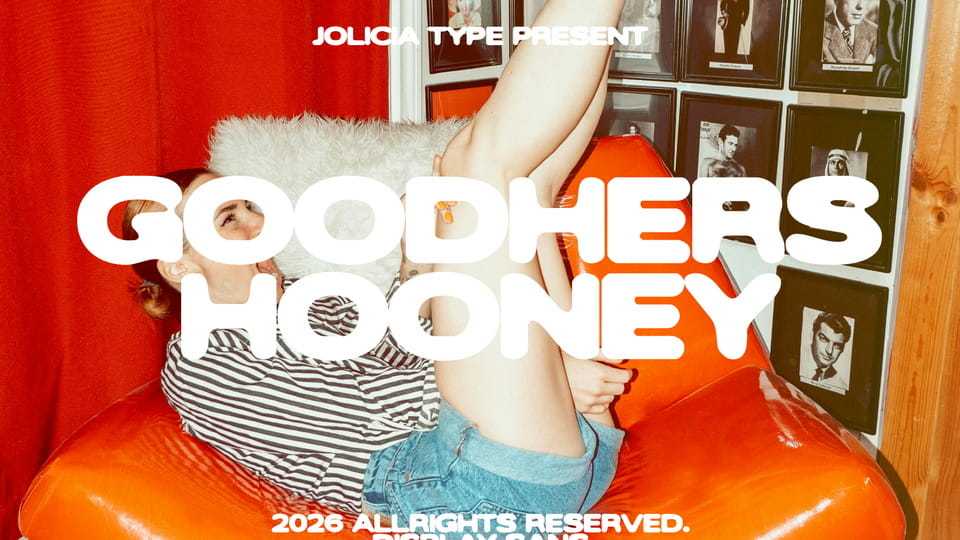
Download Goodhers Hooney font, a wide sans serif display typeface with thick, rounded, slightly blurry letterforms that create a bold yet friendly visual impact.